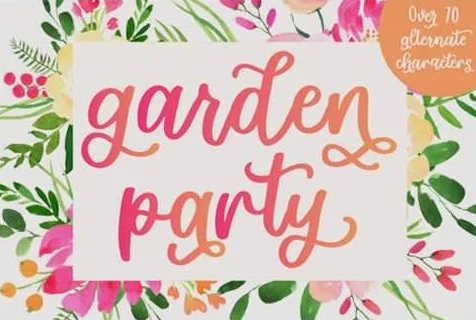
Garden Party Font
Garden Party Font is perfect for spring event invitations, floral branding, botanical illustrations, garden center signage, outdoor wedding materials, nature-inspired packaging, farmers market displays, organic product labels, tea house menus, flower shop promotions, seasonal greeting cards, and eco-friendly brand communications.
What makes Garden Party Font exciting is its delightful charm that captures the fresh, vibrant spirit of blooming gardens and outdoor celebrations through whimsical letterforms. This enchanting typeface evokes the joy and natural beauty of springtime gatherings, combining playful elegance with organic warmth that instantly transports viewers to sunlit garden spaces filled with flowers and laughter. The font's cheerful personality and nature-inspired aesthetic make it perfect for brands and events that celebrate life's beautiful moments in natural settings. Its refreshing character brings vitality and happiness to any design project while maintaining excellent readability across various applications.
The Garden Party Font family includes regular and ornamental styles, featuring floral alternates, decorative flourishes, and nature-inspired ligatures. The character set incorporates botanical elements, seasonal symbols, and garden-themed ornaments that enhance the font's natural character and provide designers with comprehensive spring and nature design options.
Whether you're creating seasonal event materials, developing nature-focused brands, or designing outdoor celebration communications, Garden Party Font Free Download provides the fresh charm your garden-inspired projects need. This premium typeface excels in applications where joy and natural beauty are essential for creating emotional connections with audiences who appreciate outdoor living and seasonal celebrations. The font's delightful qualities work beautifully across digital platforms and print media, making it an essential tool for designers creating memorable spring and summer experiences. Event planners and nature-focused businesses choose this font for its ability to communicate freshness and celebration simultaneously. The comprehensive character set supports multiple languages while maintaining its distinctive botanical aesthetic perfect for international garden and nature applications. Professional designers appreciate its versatility in creating cohesive seasonal brand systems that honor natural beauty and outdoor lifestyle values. When you implement this exceptional typeface in your nature-inspired communications, you're selecting a typography solution that celebrates the beauty of natural environments and outdoor gatherings, ensuring your brand communicates freshness, joy, and authentic connection with nature that resonates with audiences seeking beautiful, sustainable, and life-affirming experiences in today's urbanized world.